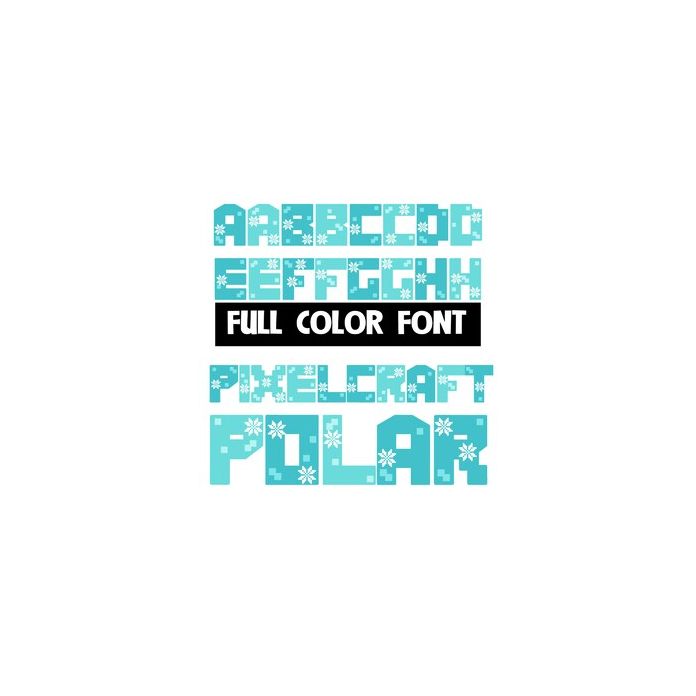
This full-color font has a very pixel-ized look that is popular with video games. This font works best for titles, displays, posters and more. Please note color fonts will show as black in non compatible programs. This font type is compatible with Silhouette Studio.